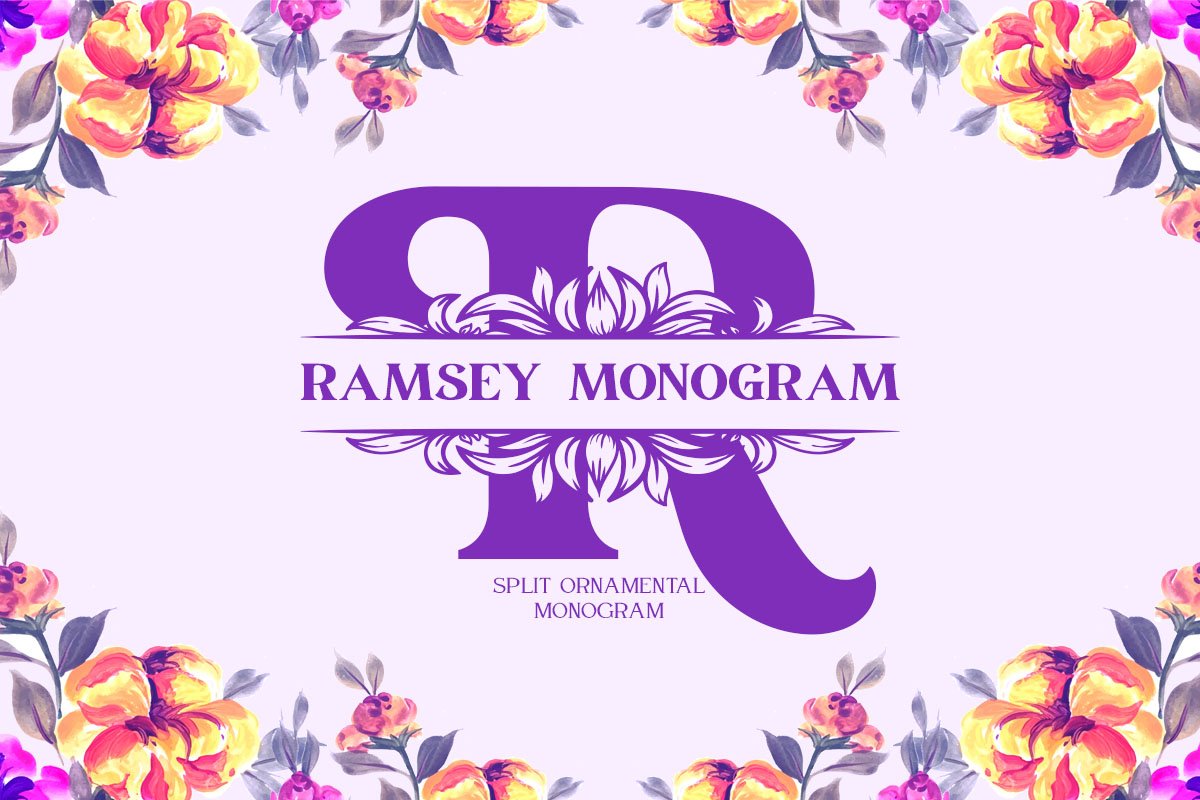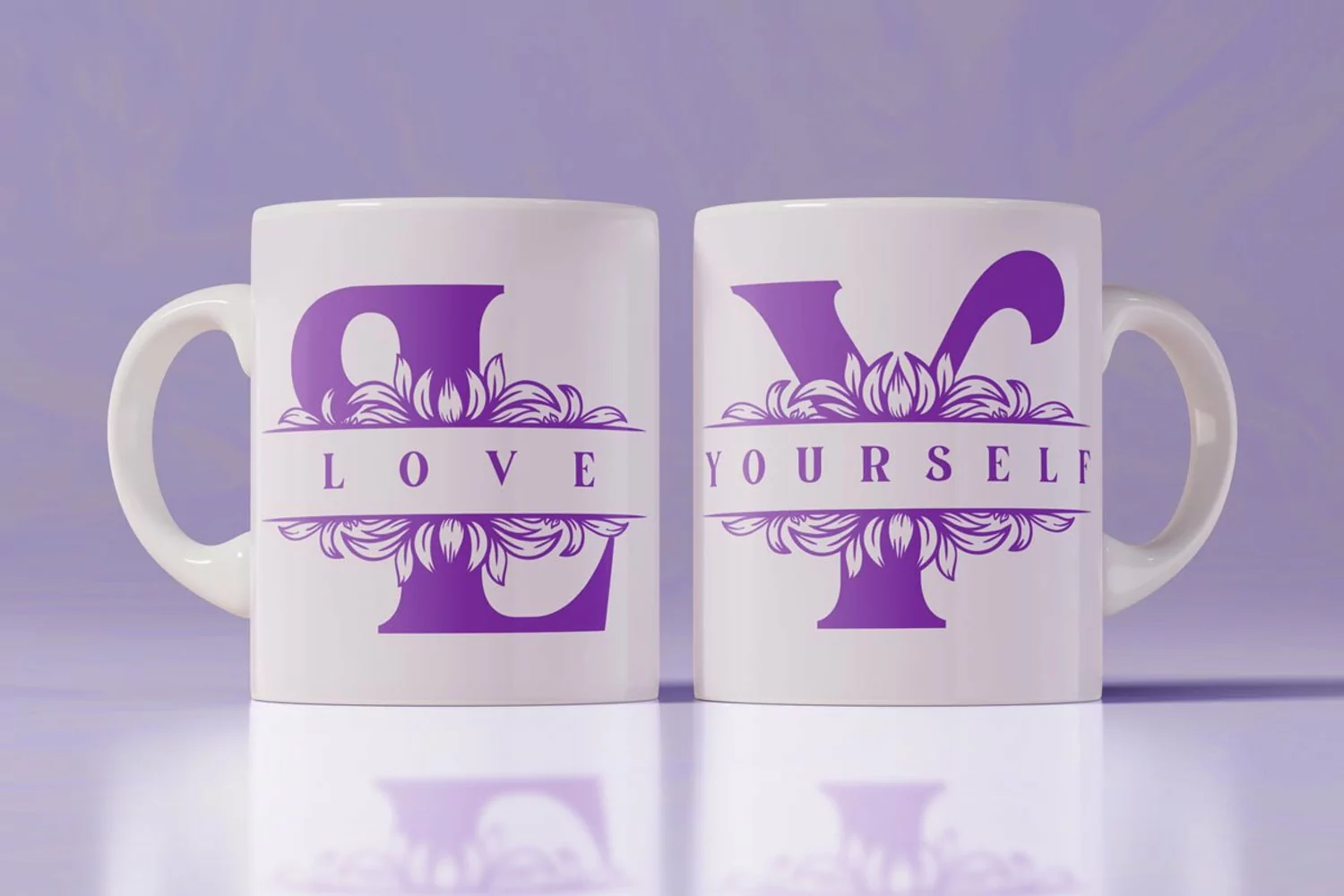
Ramsey is an amazing monogram display font. Masterfully designed to become a true favorite, this font has the potential to bring each of your creative ideas to the highest level!
Ramsey Monogram